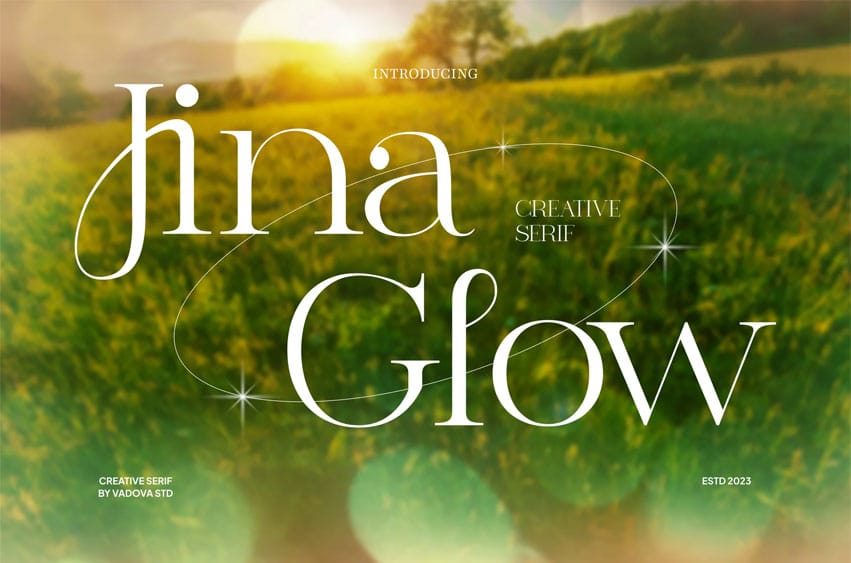
Jina Glow Font is a modern serif typeface that blends elegance with creative flair, enhanced by nature-inspired curves and vibrant styling. Ideal for editorial spreads, product packaging, seasonal campaigns, and artistic branding, Jina Glow radiates freshness and sophistication. Its airy letterforms and soft movement make it perfect for capturing a nostalgic yet contemporary feel in designs celebrating growth, beauty, and renewal.